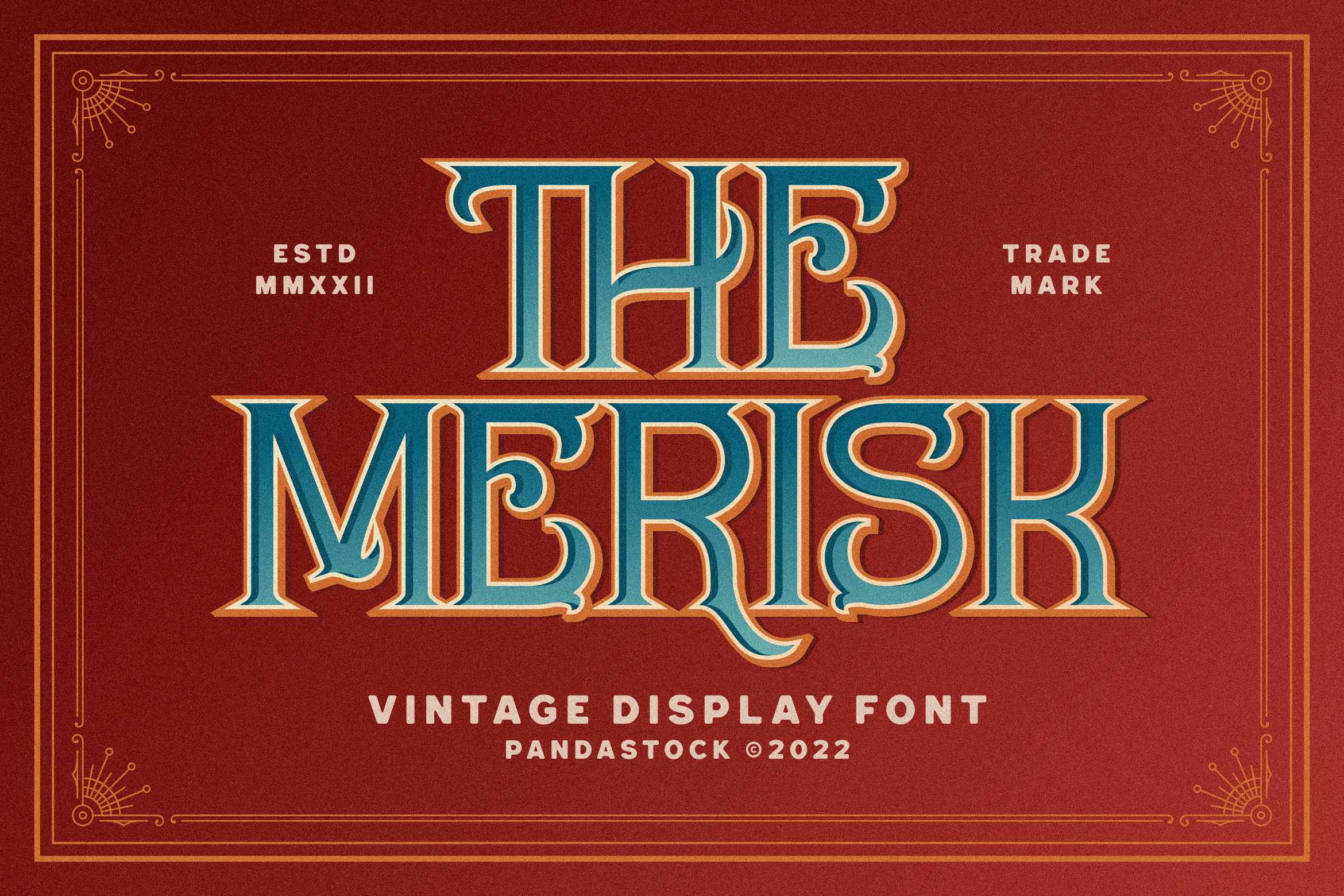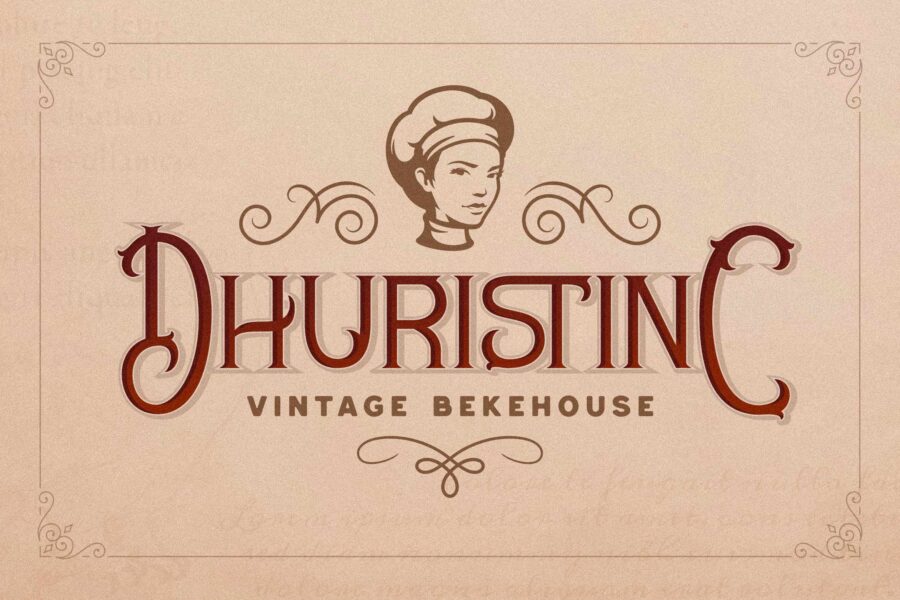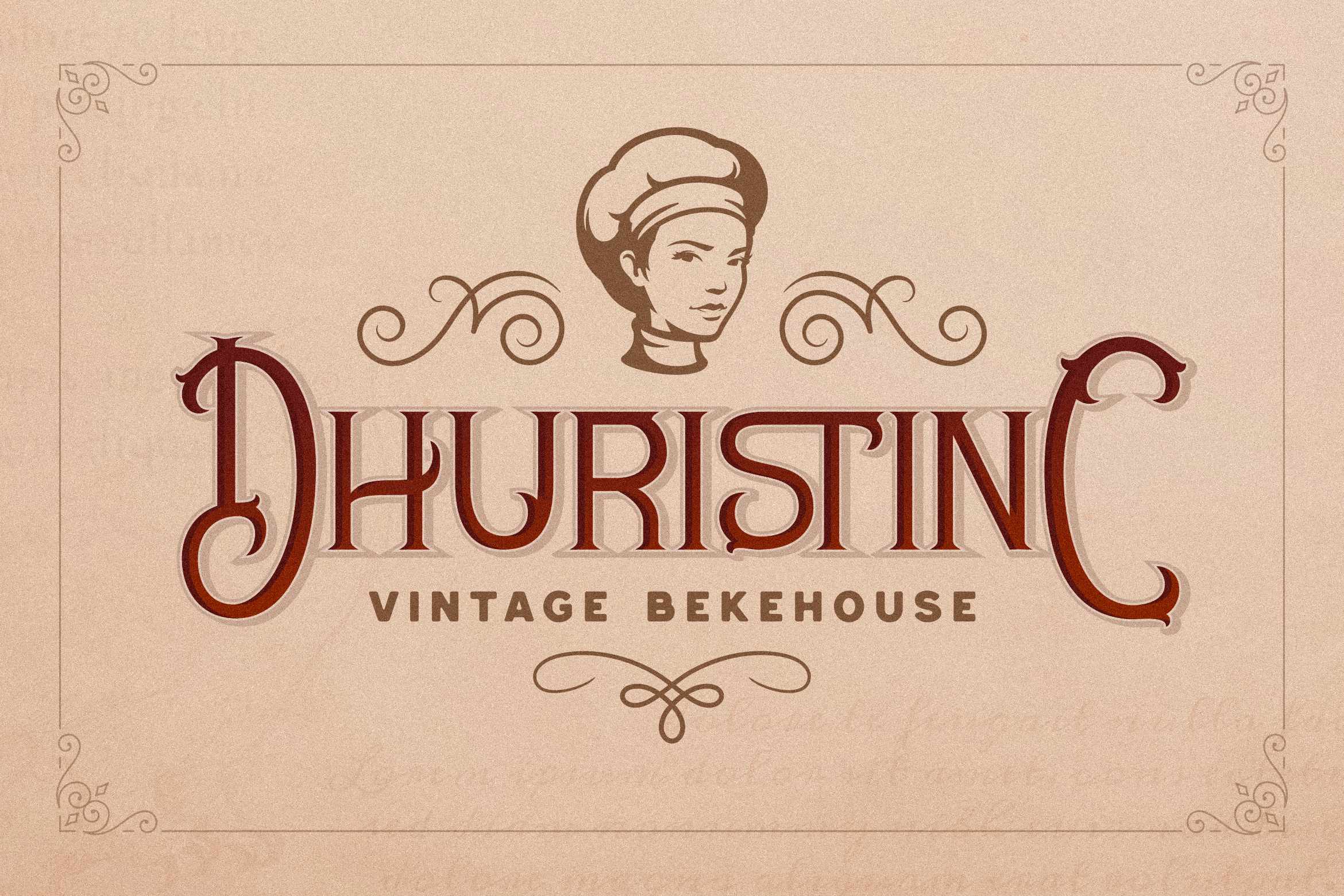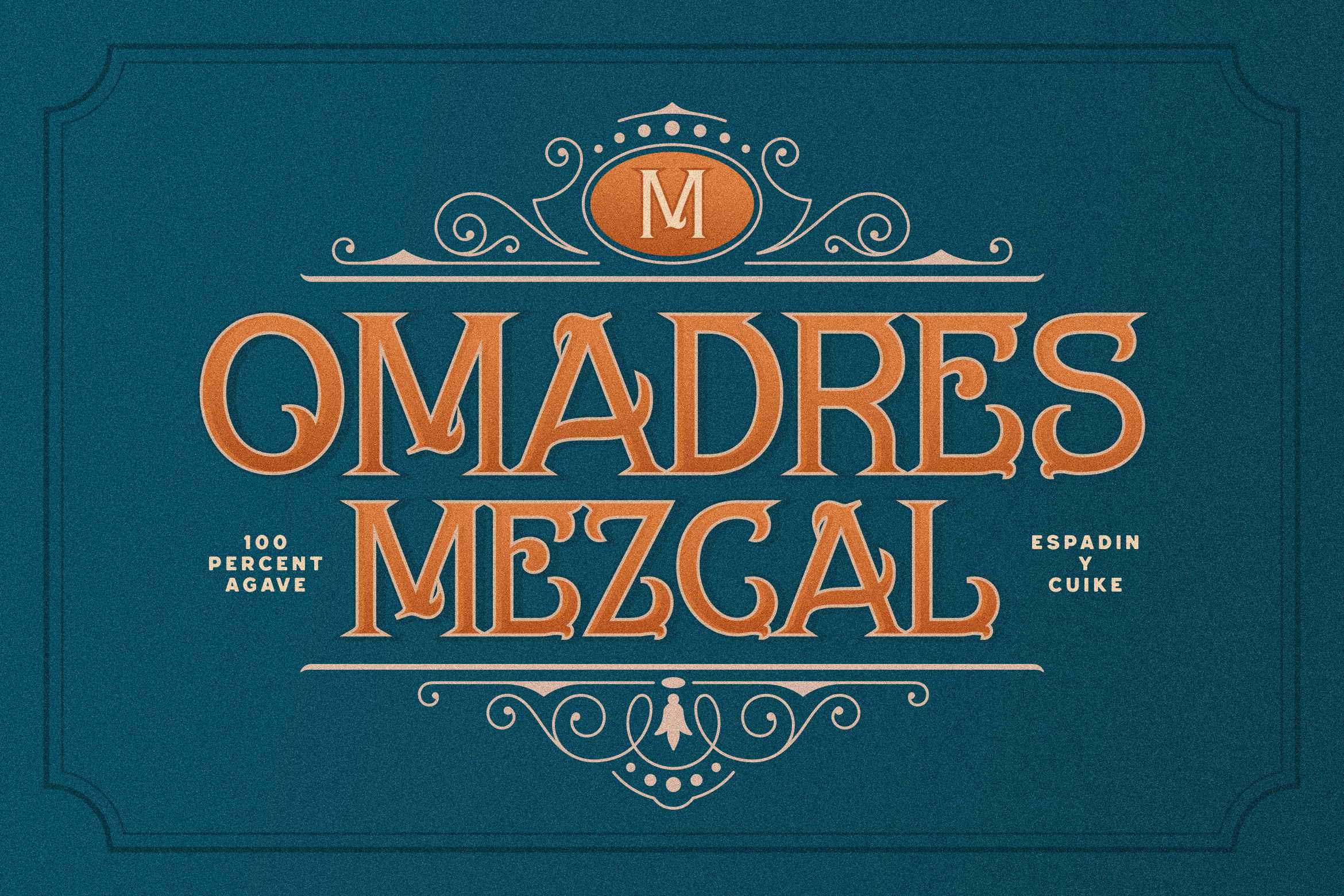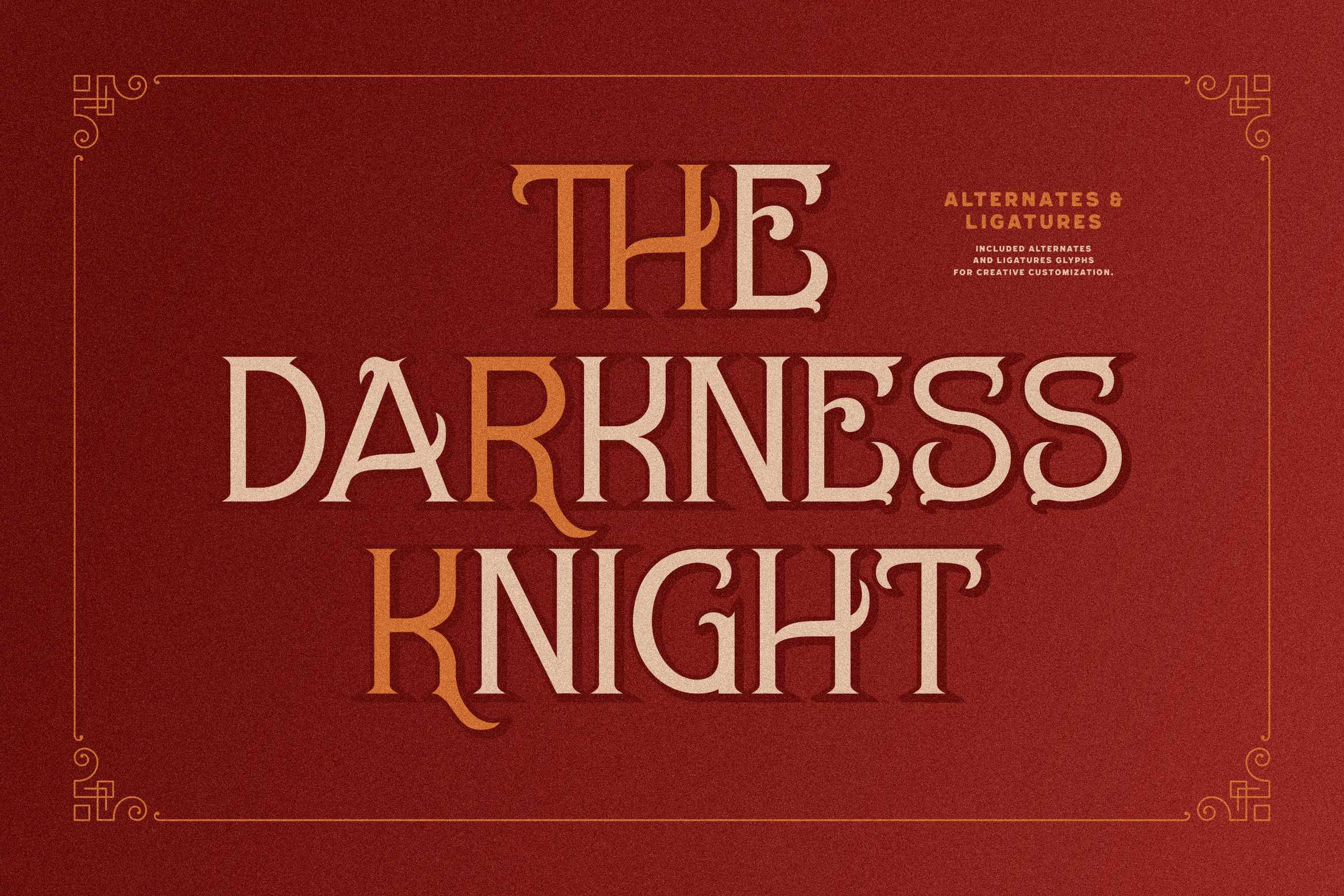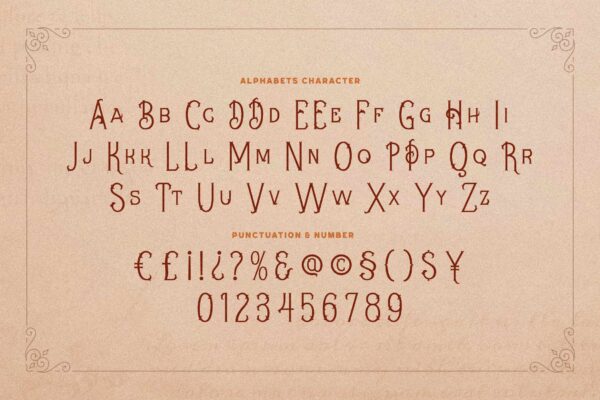
Merisk
Merisk is a vintage display font that embodies timeless elegance with its decorative serifs, ornate ligatures, and bold yet refined structure. Perfectly crafted to capture the nostalgic feel of old signage, posters, and packaging, it blends historical charm with modern versatility. Each character has been designed with fine detailing that gives your typography projects a touch of authenticity and sophistication.
Ideal for branding, logos, beverage labels, bakery packaging, or cinematic titles, Merisk adds personality and character to any project. Its unique alternates and ligatures allow endless creative possibilities, making it a reliable choice for designers seeking a classic yet impactful visual identity. Whether you’re working on editorial layouts, vintage-themed products, or stylish advertising, this font ensures your message stands out with timeless appeal.